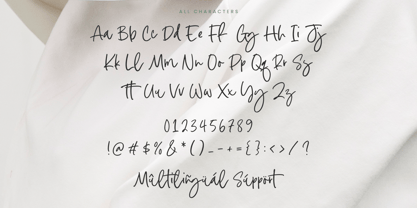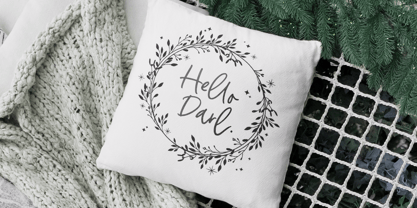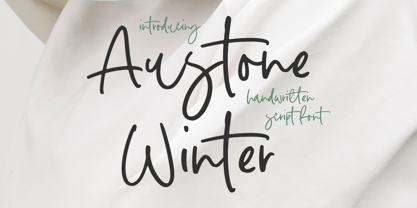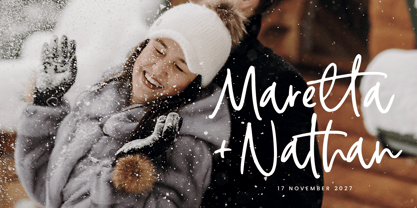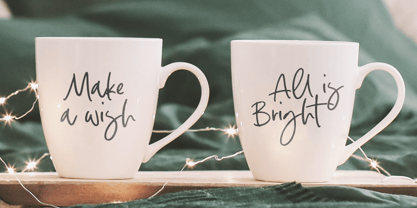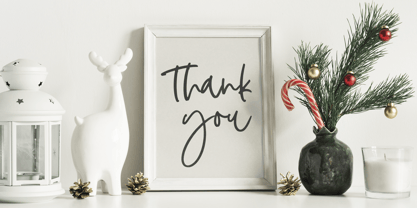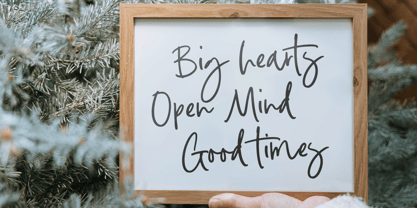
Austone Winter
by Timurtype
Austone Winter is a Handwritten Script Font
This font is a elegant handwritten script font that captures the charm of classic calligraphy with a modern twist. Featuring flowing, cursive strokes and graceful curves, this font exudes warmth and sophistication, making it perfect for wedding invitations, greeting cards, and seasonal designs. Its unique character set, with gentle flourishes and balanced letterforms, evokes a sense of winter's beauty and tranquility, adding a touch of personal, handwritten style to any project.
Austone Winter Font also supports multilingualism